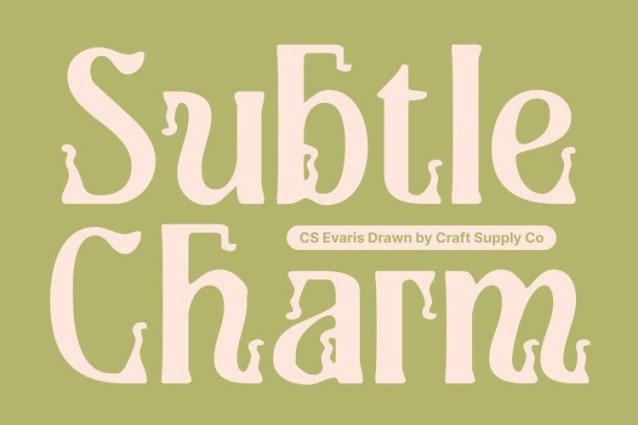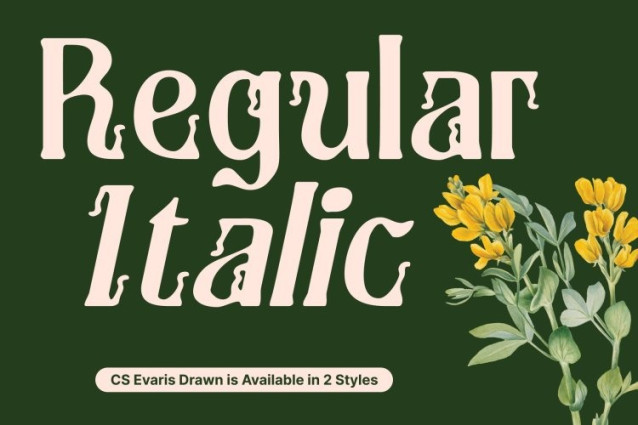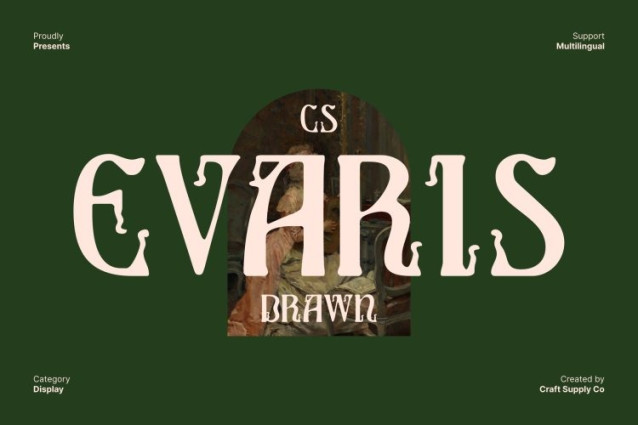
CS Evaris Drawn Font – This is a stylistic serif font crafted for designers who want elegance with a touch of artistry. Its refined shapes introduce a sophisticated presence, while expressive curves and crafted details bring personality into every letter. This balance of style and refinement makes it the perfect choice for high-end creative work that needs both beauty and originality.
Decorative Alternates for Distinctive Expression
One of the core strengths of this font lies in its decorative alternates, offering designers the flexibility to shape a tone that feels luxurious, unique, and visually captivating. These alternates expand the creative possibilities, allowing for custom wordmarks, elevated headlines, and compelling typographic statements that stand apart from traditional serif designs.
Unique Ligatures that Enhance Flow and Aesthetics
The font incorporates beautifully formed ligatures to create seamless connections between characters, resulting in smooth, flowing typographic compositions. These unique ligatures add sophistication and visual rhythm, making the type feel more custom-crafted and thoughtfully designed. Whether used subtly or prominently, they elevate the entire typographic experience.
Perfect for Logos, Posters, and Editorial Layouts
This font shines across premium design projects from luxury logos and expressive posters to modern editorials and brand identities. Its combination of refined serif structure, artistic alternates, and handcrafted flair gives each design a polished yet creative edge.